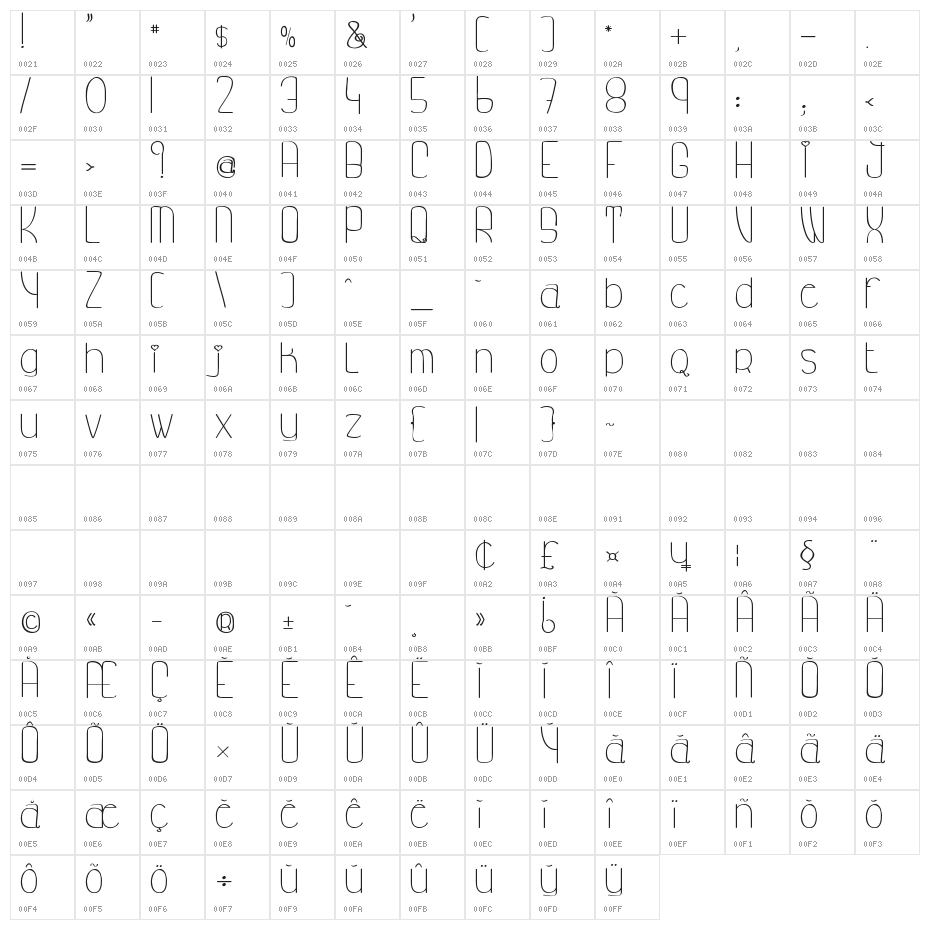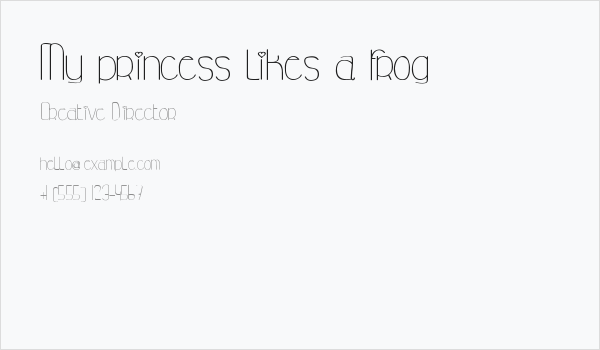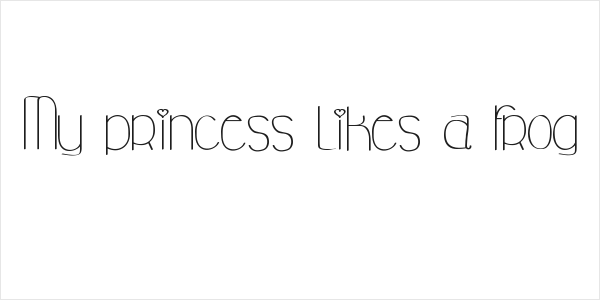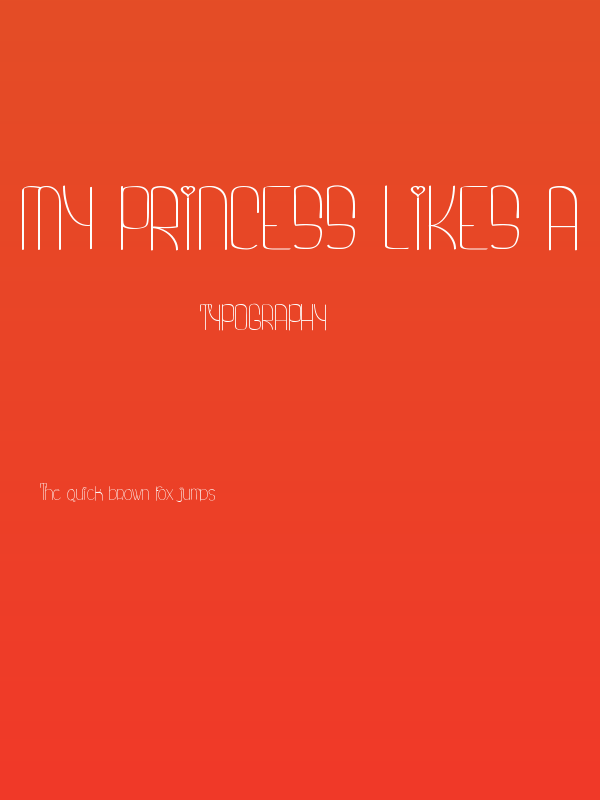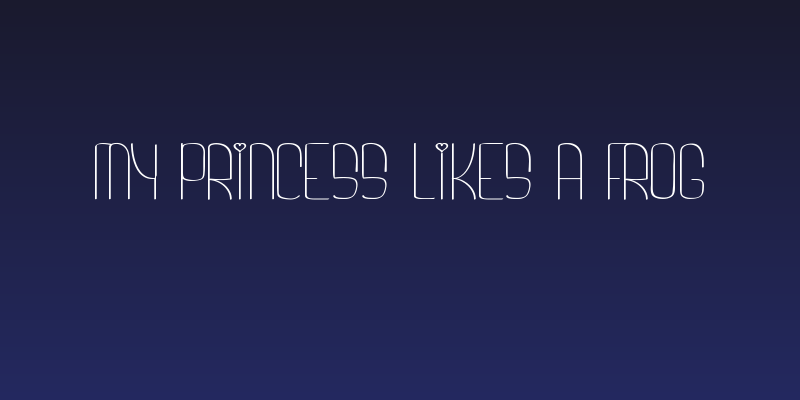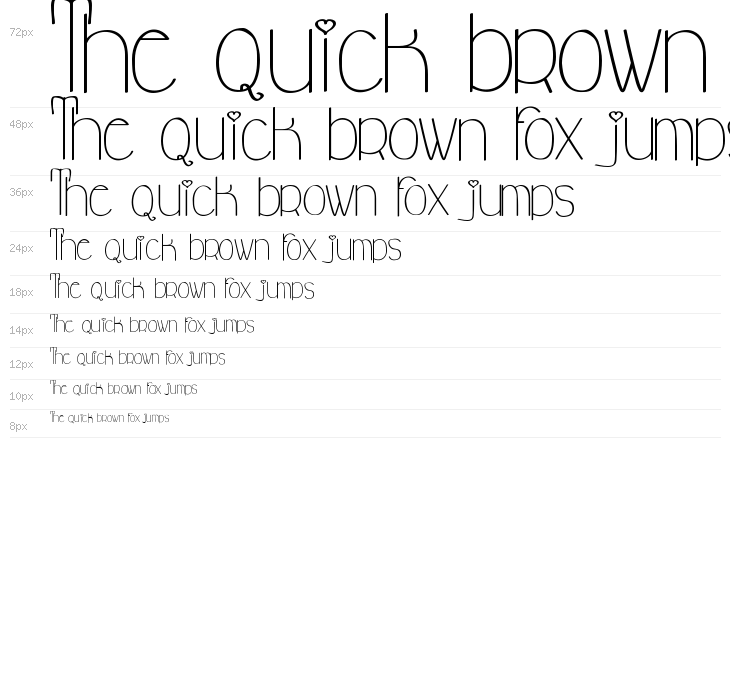
My princess likes a frog Font
My princess likes a frog Description
This font features a whimsical and playful design, characterized by its thin, elongated strokes and unique decorative elements. Each letter is crafted with a sense of elegance and charm, incorporating subtle heart motifs that add a touch of romance and fantasy. The uppercase and lowercase letters maintain a consistent style, with smooth curves and a delicate appearance. The numerals and special characters follow the same aesthetic, ensuring a cohesive look across all text. This font's light and airy feel makes it ideal for projects that require a touch of enchantment and creativity.
| Proposed Projects | Ideal for wedding invitations, fairy tale book covers, greeting cards, and romantic branding. |